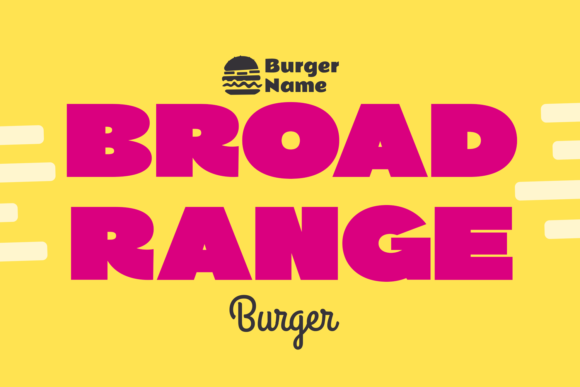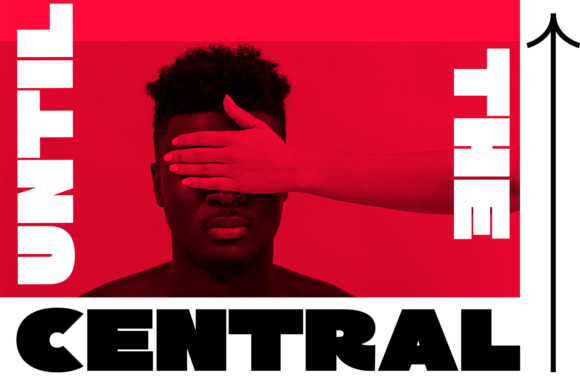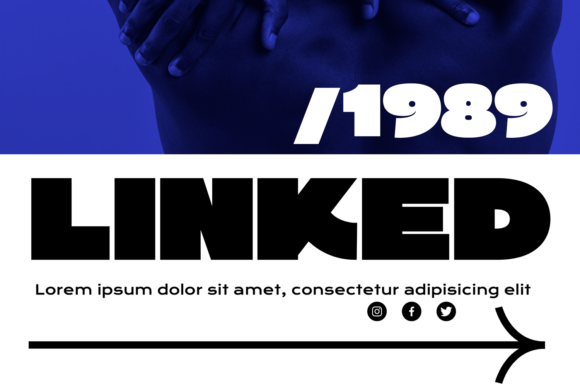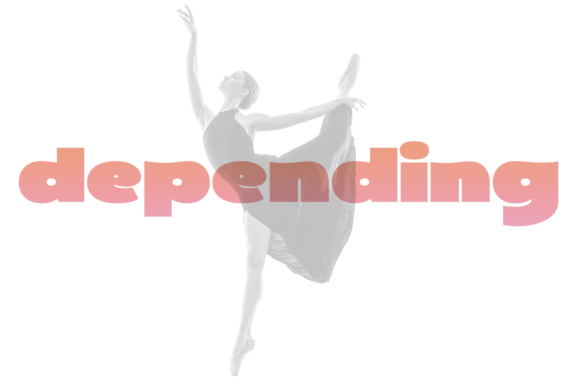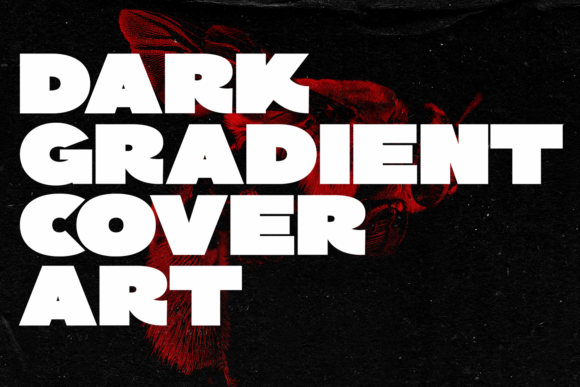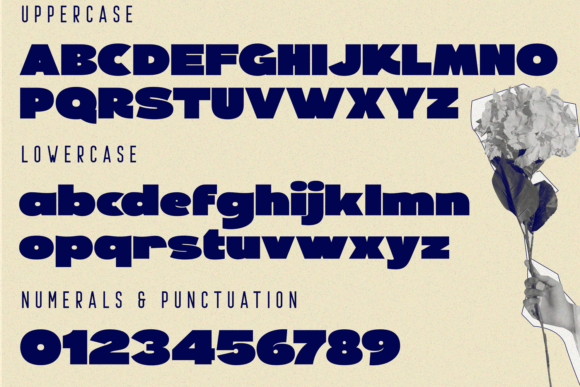
Introduction to Perform Generic Font
Perform Generic is a bold sans serif font specially created to produce maximum visual and emotional impact.
It is perfect for those of you who want to make book covers, brand logos, layout displays, headlines, or anything modern and contemporary Add it to any of your creative ideas, and notice how they will capture everyone’s attention.
Key Features of Perform Generic Font